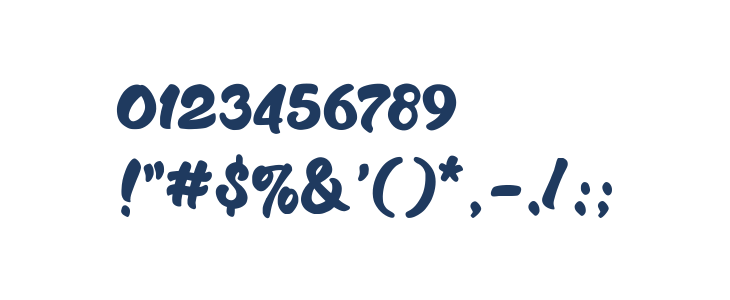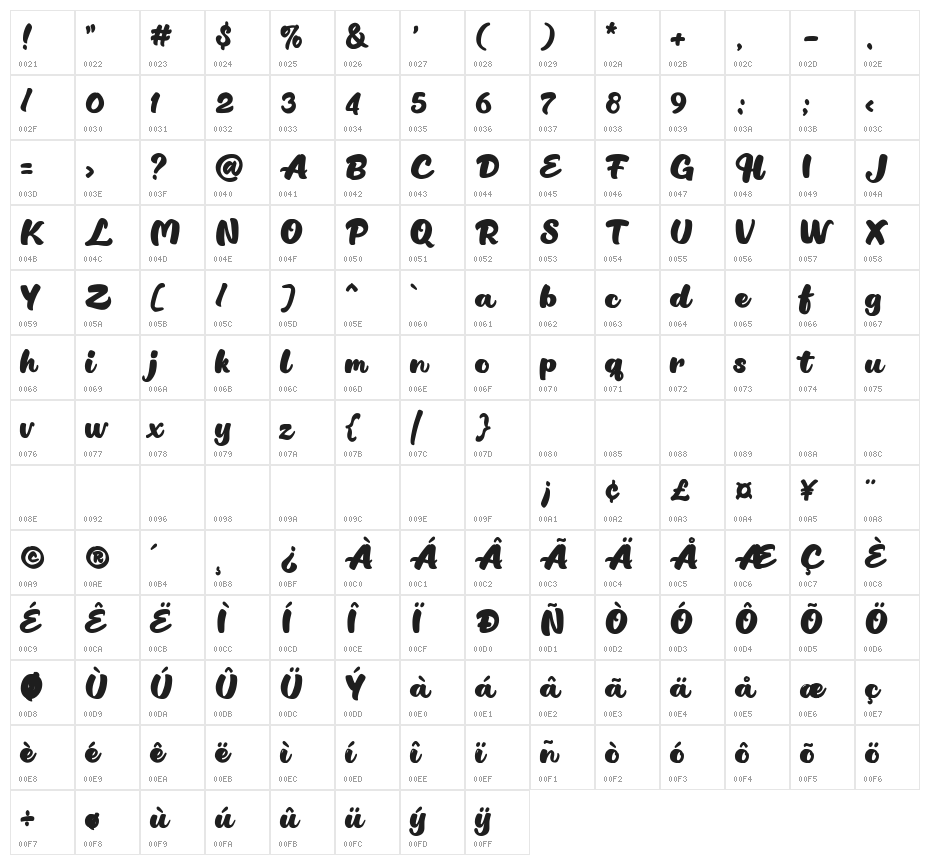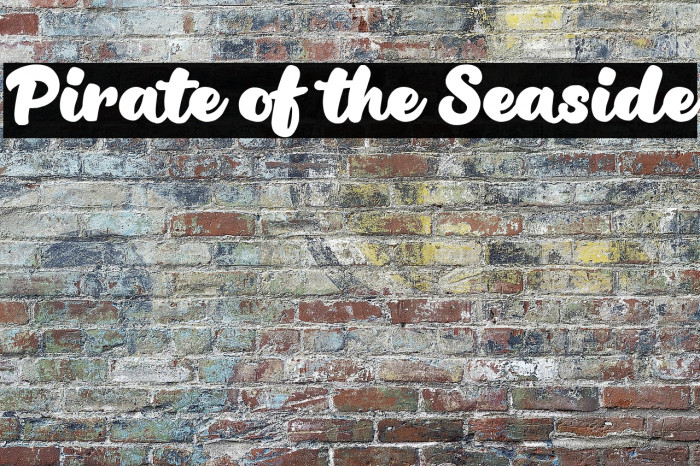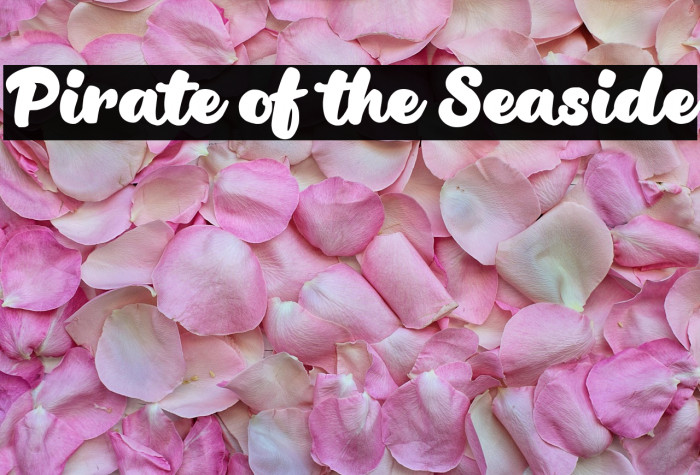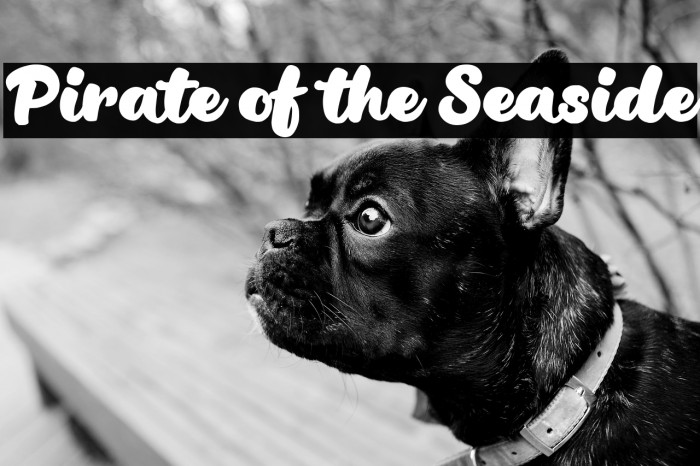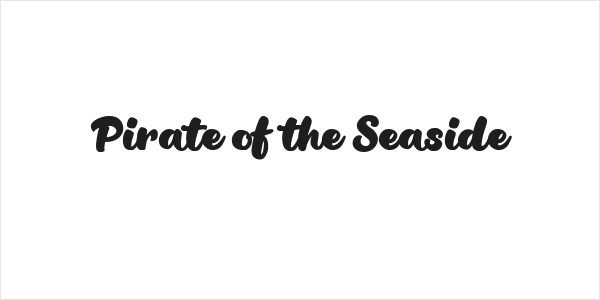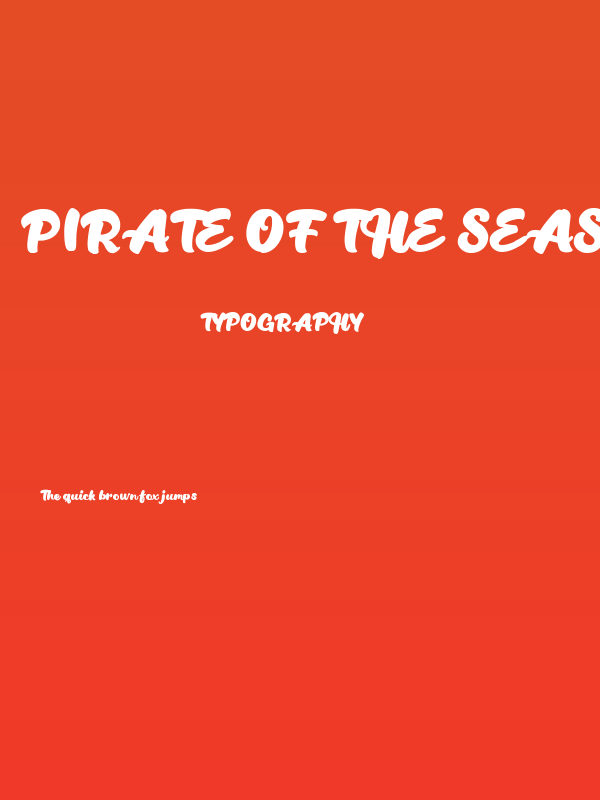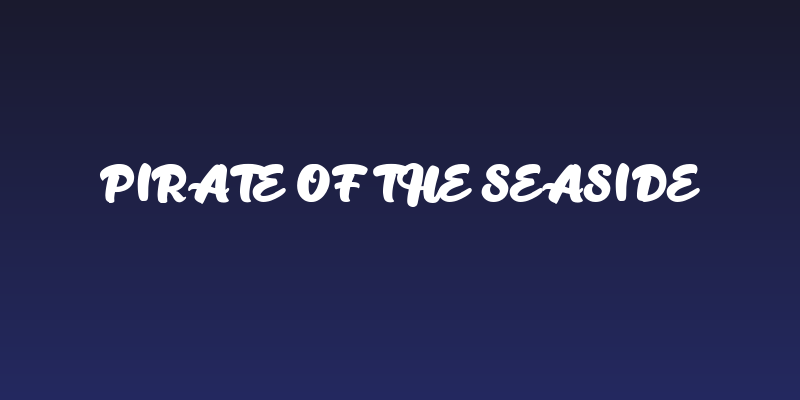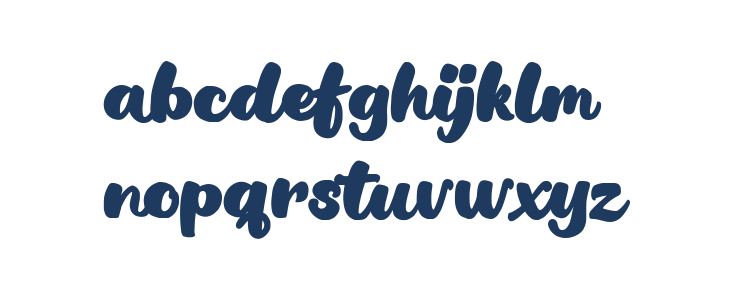
Pirate of the Seaside Font
Pirate of the Seaside Description
This font exudes a playful and bold personality, characterized by its thick, rounded strokes and smooth, flowing curves. The letters are closely spaced, creating a sense of cohesion and energy. Its script-like appearance is both casual and dynamic, making it ideal for projects that require a touch of whimsy and creativity. The uppercase and lowercase letters maintain a consistent style, with a slight slant that adds to its informal charm. The numerals and special characters are equally bold and expressive, ensuring readability while maintaining the font's overall aesthetic.